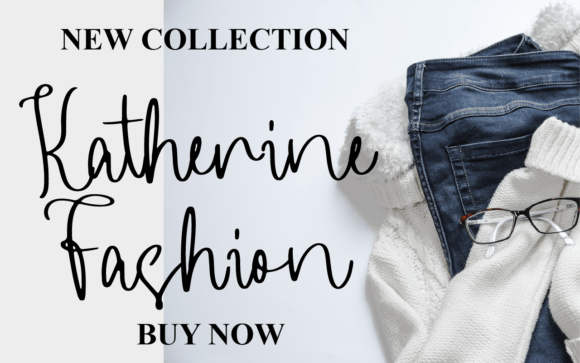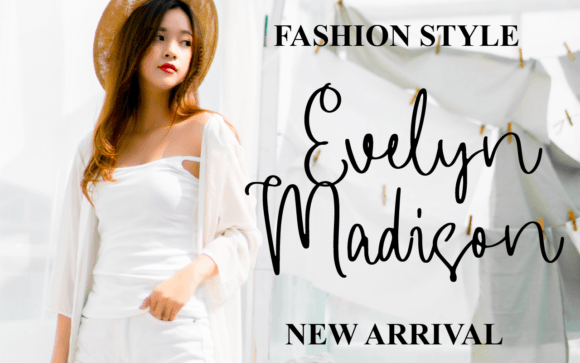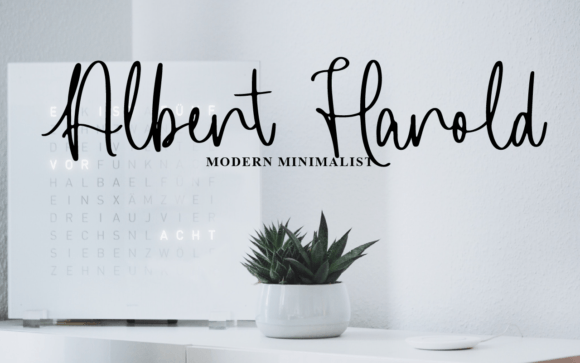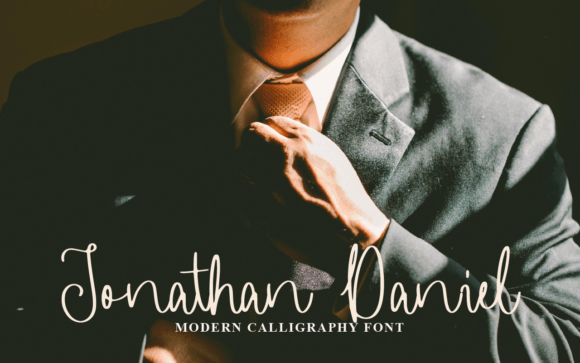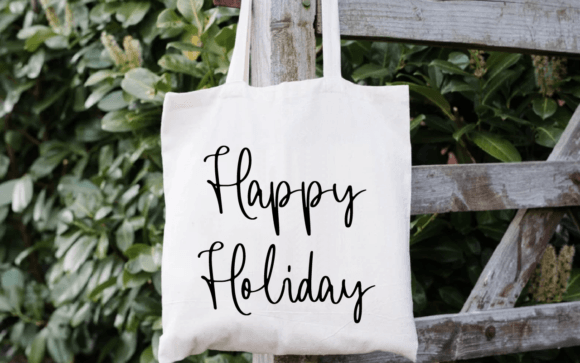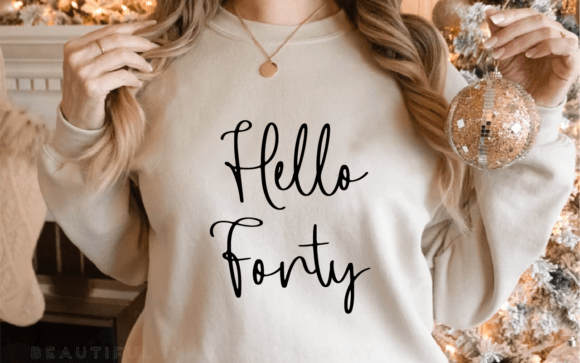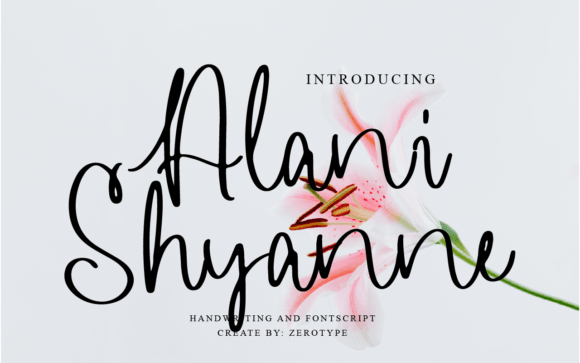
Discover the Elegance of Alani Shyanne Font: A Timeless Script Font
The breathtaking script font, Alani Shyanne, is a true work of art, meticulously crafted to exude elegance and charm. With its delicate curves and intricate details, it adds a touch of sophistication and refinement to any design project. Its timeless beauty is sure to captivate and enchant viewers, leaving a lasting impression.
The Art of Typography: What Makes Alani Shyanne Font Special
In the world of typography, script fonts hold a special place for their ability to add a personal touch to designs. Alani Shyanne Font is no exception. This exquisite font is designed to bring a sense of luxury, elegance, and creativity to various design projects, from branding and advertising to packaging and digital media. Its unique blend of classic and modern elements makes it a versatile choice for designers looking to make a statement.
Key Features of Alani Shyanne Font
• Delicate Curves and Intricate Details: The font boasts beautiful, flowing curves and intricate details that give it a distinct, hand-crafted feel.
• Elegant and Sophisticated: Alani Shyanne adds an air of sophistication and elegance to any design, making it perfect for high-end branding, luxury packaging, and refined digital content.
• Versatility: This font can be used across various design projects, including but not limited to, logos, stationery, advertisements, and website headers.
• Timeless Appeal: Unlike trendy fonts that may quickly become outdated, Alani Shyanne’s classic beauty ensures it remains relevant and stylish for years to come.
Applications of Alani Shyanne Font
The versatility of Alani Shyanne Font makes it suitable for a wide range of applications. Here are some of the most popular uses:
• Branding and Logo Design: Create a lasting impression with a unique and elegant logo that stands out from the competition.
• Stationery and Packaging: Elevate your brand’s stationery and packaging with a sophisticated font that exudes luxury and refinement.
• Digital Media: Enhance your website, social media graphics, and digital advertisements with a touch of elegance and sophistication.
• Wedding and Event Design: Add a personal touch to wedding invitations, event programs, and other design materials with this beautiful script font.
Tips for Using Alani Shyanne Font Effectively
To maximize the impact of Alani Shyanne Font in your designs, consider the following tips:
• Pair with Complementary Fonts: Combine Alani Shyanne with simple, sans-serif fonts to create a balanced and harmonious design.
• Use for Headings and Titles: Take advantage of the font’s elegance by using it for headings and titles, and a simpler font for body text.
• Experiment with Colors: While the font itself is elegant, the right color choice can further enhance its beauty. Experiment with different colors to find the perfect match for your design.
Alani Shyanne Font is a breathtaking script font that brings elegance, sophistication, and charm to any design project. Its delicate curves, intricate details, and timeless beauty make it a versatile choice for designers and crafters looking to add a touch of luxury and refinement to their work. Whether you’re creating a brand identity, designing packaging, or crafting digital content, Alani Shyanne is sure to captivate and enchant your audience, leaving a lasting impression.